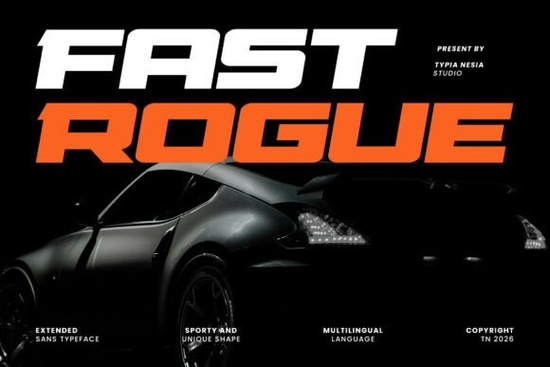
If you've been searching for a typeface that feels fast, powerful, and built for action, the Fast Rogue font is worth a close look. It's a bold, expanded, italic typeface designed specifically for projects that need to communicate speed, energy, and a competitive edge. Whether you're working on motorsport branding, esports graphics, or a tech startup logo, this font was made for that kind of visual intensity.
In this article, I'll break down what makes the Fast Rogue font stand out, where it works best, and how to pair it with other typefaces for maximum impact.
What Is the Fast Rogue Font, and Who Is It For?
Fast Rogue is a modern bold expanded italic display font with a strong slanted structure and wide letter proportions. The design draws from automotive racing culture, competitive sports branding, and futuristic tech aesthetics. Every character has a forward-leaning momentum that makes text feel like it's in motion.
This typeface is a solid fit for:
- Logo design and custom logotypes for sports or automotive brands
- Esports graphics and gaming overlays
- Poster design for racing events or athletic campaigns
- Web headers that need bold, attention-grabbing headlines
- T-shirt designs and print-on-demand products targeting motorsport or fitness niches
- Tech startup branding that wants to look sharp and forward-thinking
If you run a print-on-demand shop or sell graphics on marketplaces, a racing-style display font like this one opens up a whole product category that's always in demand.
What Makes This Font Different from Other Racing Typefaces?
Plenty of bold italic fonts exist, but Fast Rogue stands apart because of its expanded width and futuristic letterforms. Most racing fonts go narrow and condensed. This one goes wide, which gives headlines a more commanding, grounded presence. It doesn't just suggest speed it fills space confidently.
- Multilingual support for global projects
- Full numeral set and punctuation
- Alternate characters for more design flexibility
That multilingual support is especially useful if you sell designs internationally or work with clients in different markets.
Where Does Fast Rogue Work Best?
Think about any project where the main message is motion, strength, or competition. That's where this font shines.
Racing and motorsport projects are the most obvious use case. Event posters, race day graphics, car wrap mockups, and team branding all benefit from a typeface that looks like it belongs on a starting grid.
Esports and gaming is another strong match. Gaming team logos, Twitch overlays, and YouTube thumbnails for racing or action games pair well with this kind of bold, slanted display style. If you're working in the gaming space, you might also want to explore something like Pixel Zone for a different digital aesthetic.
Sports branding and fitness logos can use Fast Rogue to suggest power and performance. Gym logos, athletic wear branding, and sports team graphics all benefit from that wide, assertive character shape.
Tech and startup design works surprisingly well too. The futuristic quality of the letterforms gives tech brands a modern, innovative feel without being too abstract or hard to read.
How Does It Compare to Other Display Fonts?
If you're browsing Creative Fabrica's display font category, you'll find a wide range of styles. Fast Rogue occupies a specific niche bold, expanded, italic, and sporty. Here's how it stacks up against some other popular options:
- Outline Friday offers a lighter, more decorative outline style that works well for casual or lifestyle designs.
- Sunday Grunge brings a textured, distressed look that's great for vintage or edgy projects.
- The Crafty Marie leans into a handwritten, crafty aesthetic for a completely different audience.
Each of these has its place, but when the brief calls for speed and intensity, Fast Rogue is the right tool. It's also worth noting that Fast Rogue maintains strong readability even at the bold expanded width something not every display font can claim.
- Pair it wisely use a clean sans-serif for body text and let Fast Rogue handle the headlines